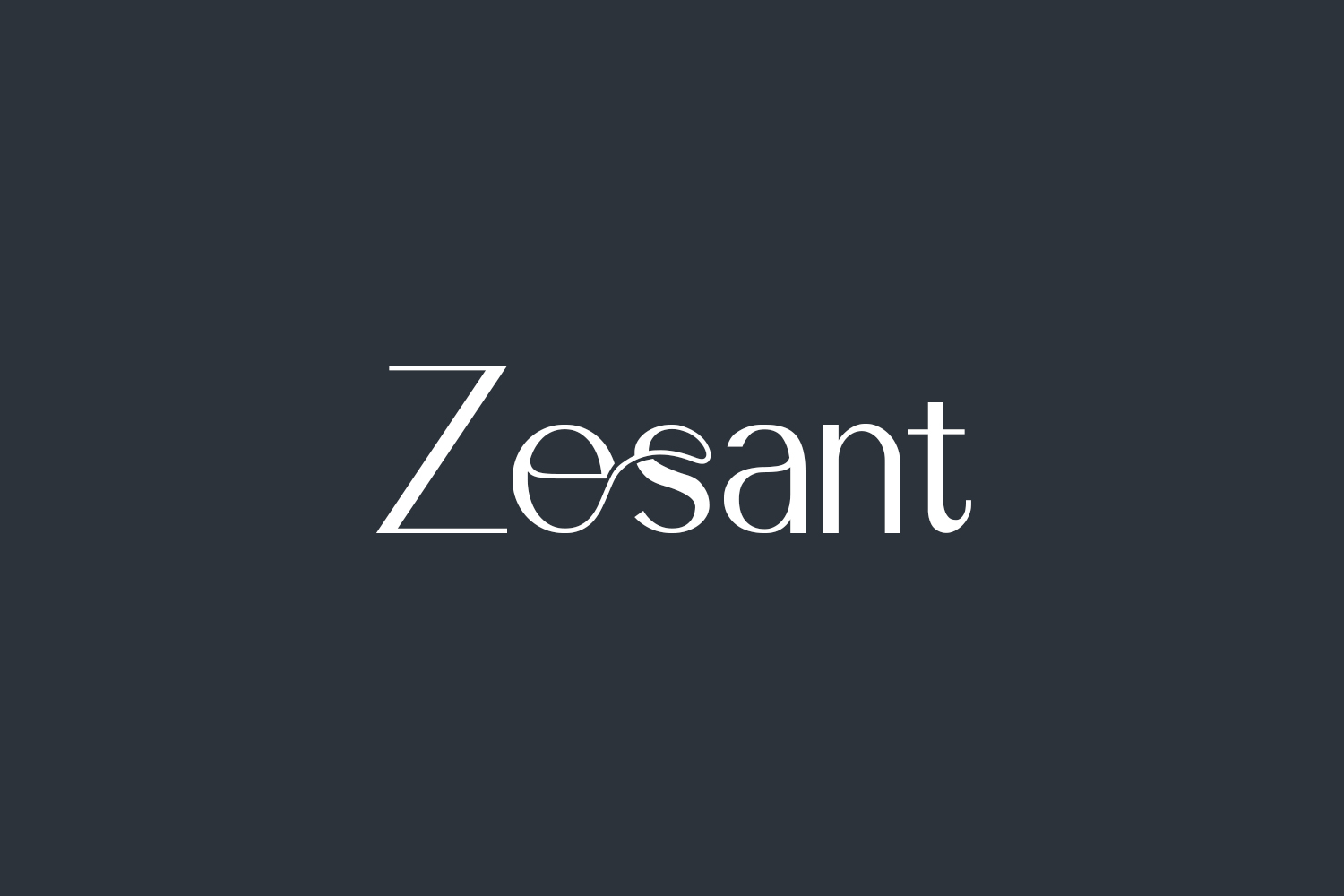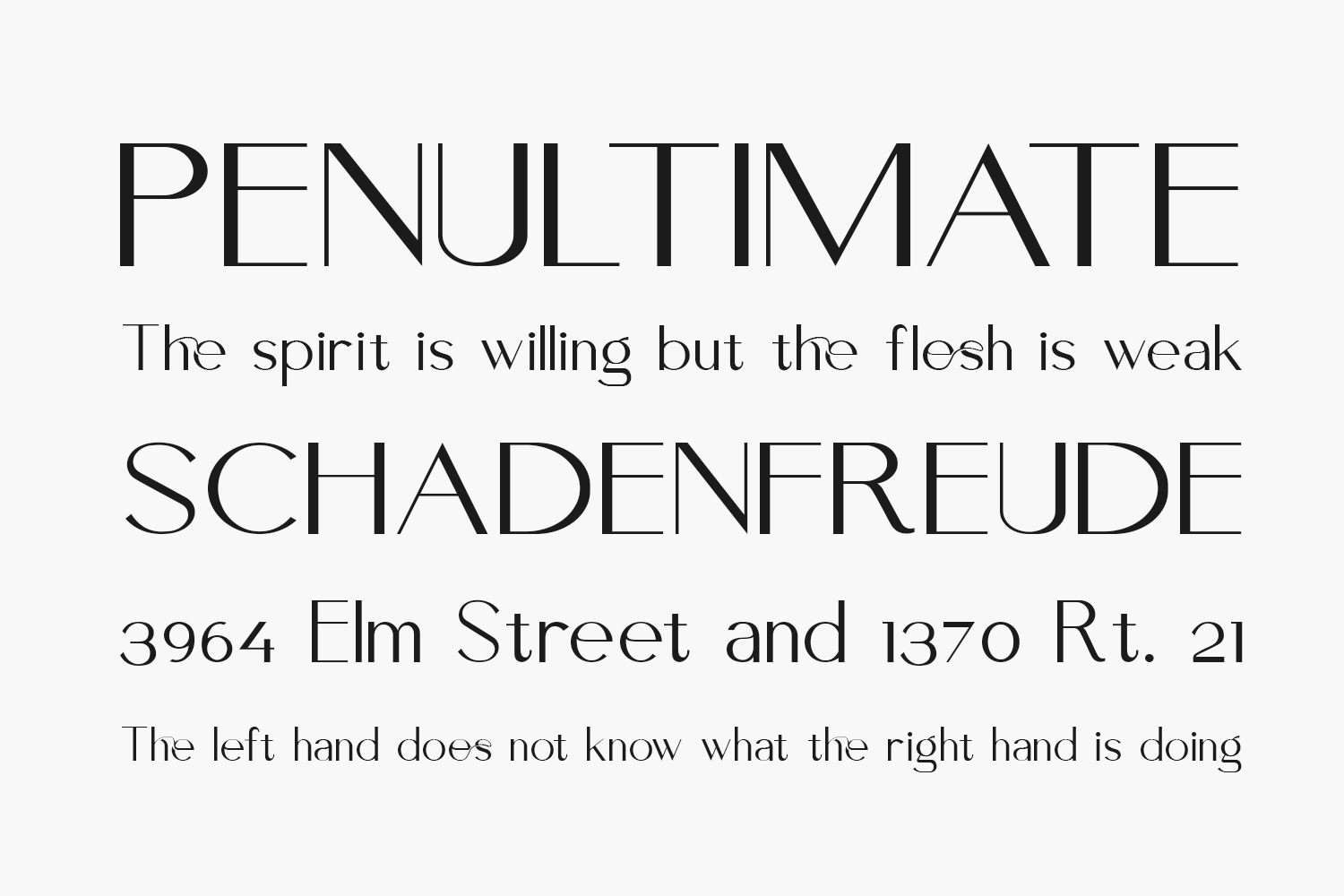
Zesant Free Font is an incredibly elegant sans serif font with a modern feel. Use it to turn any design project into a standout. Zesant Free Font was designed by Faqih Fawaji and is free for personal use only. Please purchase the full version for commercial use.
Designed by Faqih Fawaji